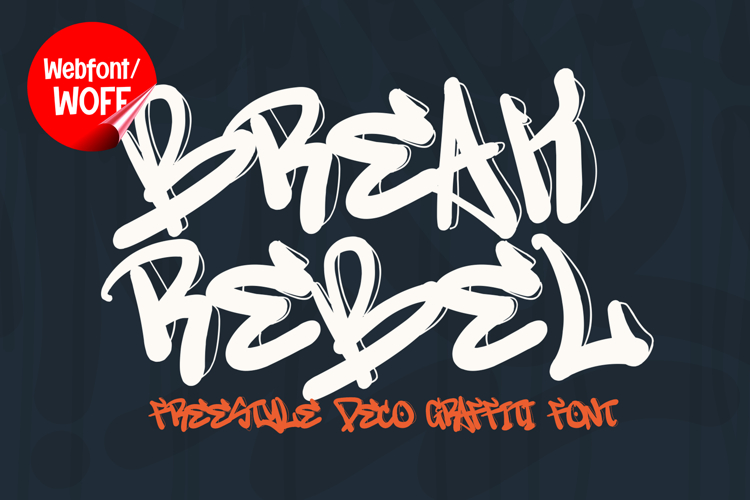
Break Rebel | Decorative Graffiti Tags Webfont
Break Rebel is a decorative graffiti tags webfont designed to bring raw street energy and expressive urban style into modern website design. Inspired by freestyle tagging, wall murals, and decorative graffiti lettering, this font features dynamic strokes and creative details that create a bold and rebellious visual identity. It is an excellent choice for projects that aim to stand out with authentic street-inspired typography and artistic impact.
Break Rebel includes a complete set of uppercase characters designed with decorative graffiti tag forms. The letterforms combine flowing movement with edgy details, creating a strong sense of motion and urban creativity. These characteristics make it ideal for headlines, banners, hero sections, and featured content where a bold and artistic visual appearance is needed.
In addition to letters, the font includes numbers and punctuation, allowing flexible usage across various parts of a website. It works well for streetwear branding, music platforms, gaming websites, promotional campaigns, and creative portfolios. Each character maintains a consistent graffiti tag style, ensuring a cohesive and unified visual identity throughout the layout.
With multilingual support, Break Rebel includes a wide range of accented characters, making it suitable for international websites and global audiences. This ensures content remains clear and visually consistent across different languages while preserving the expressive and urban aesthetic.
The decorative graffiti tag style of Break Rebel makes it especially suitable for urban-themed websites, hip hop branding, esports projects, digital art portfolios, and youth-oriented campaigns. Its energetic and rebellious design adds personality and depth, helping websites stand out in visually competitive environments. The flowing strokes and decorative details enhance the creative street-art atmosphere.
Despite its expressive and stylized appearance, Break Rebel is designed with readability in mind. The spacing and proportions are carefully balanced to ensure clarity, particularly in display sizes. This makes it effective for impactful headings and short content elements where both style and usability are important.
Break Rebel is a webfont that combines graffiti aesthetics with decorative tagging style and modern digital performance. Its bold forms, dynamic structure, and urban character create a distinctive typographic presence that enhances website design. For projects that require a creative, edgy, and visually engaging graffiti font, Break Rebel offers a strong and versatile solution.